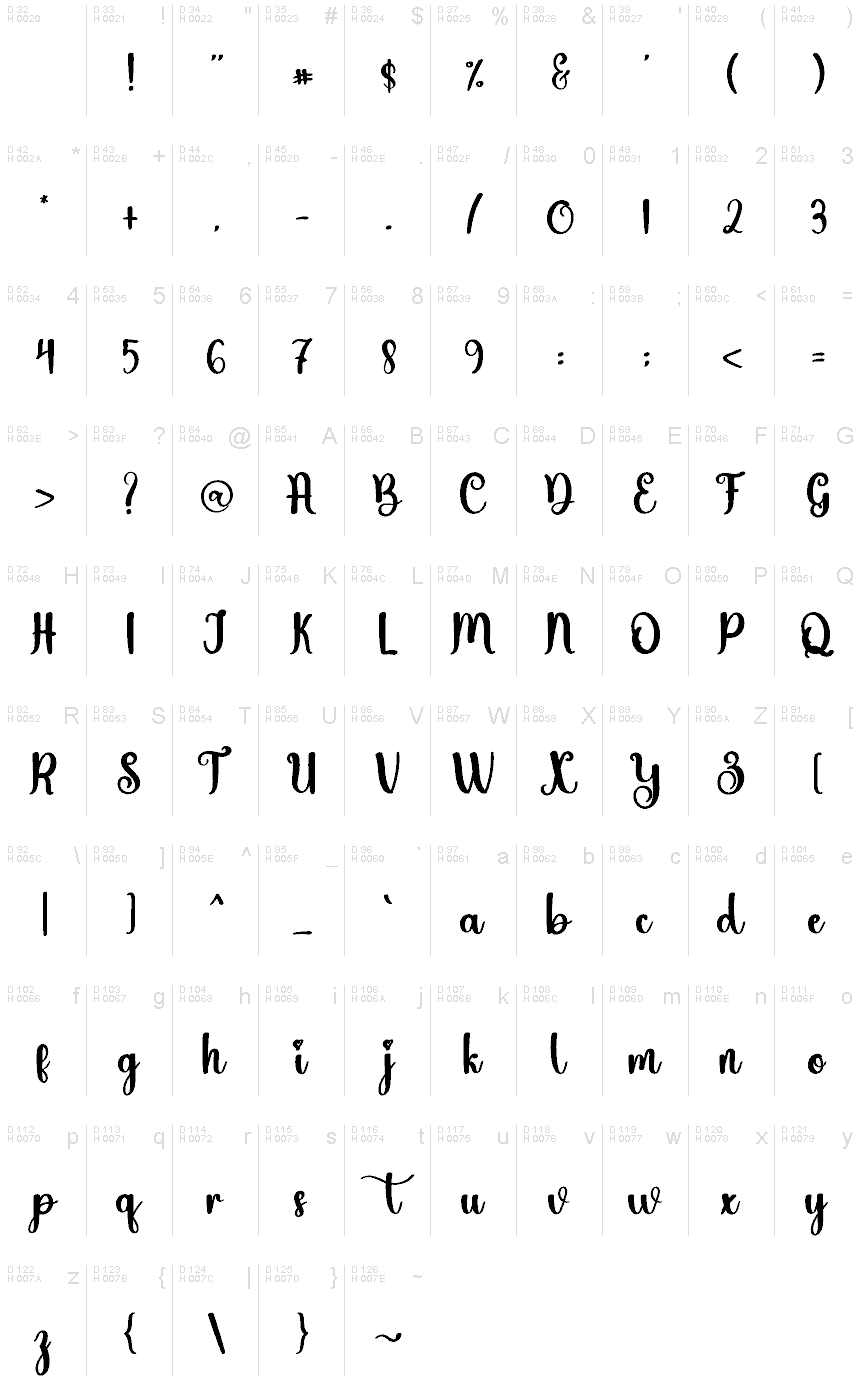
Winter Vibes
Winter Vibes font, designed by PiPi Creative, is an expressive display brush font with a casual aesthetic. Slight imperfections and whimsical accents define this lively character type. It subscribes to modern scripts through unpredictable lines and soft curves that evoke a sense of playfulness and youth.
This free brush font is suitable for greeting cards and invitations, paper crafts typography, t-shirt design, stickers typography on package labeling of cupcakes or patterns on coffee mugs. Use it in branding designs such as logos of juice shops or bakeries along with positioning boards for pubs and bars etc.